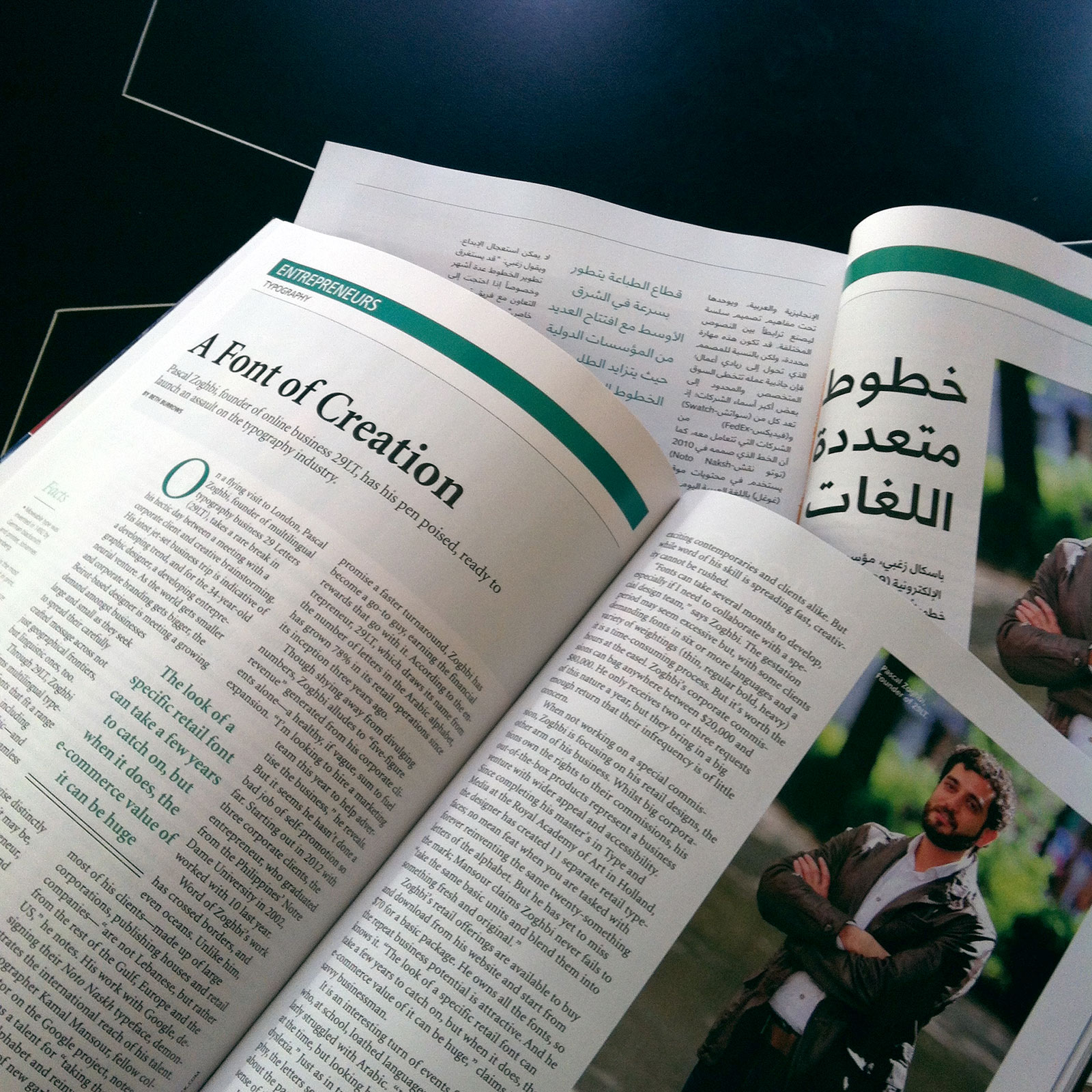
Pascal Zoghbi, founder of online business 29LT, has his pen poised, ready to launch an assault on the typography industry.
On a flying visit to London, Pascal Zoghbi, founder of multilingual typography business 29Letters (29LT), takes a rare break in his hectic day between a meeting with a corporate client and creative brainstorming. His latest jet-set business trip is indicative of a developing trend, and for the 34-year-old graphic designer, a developing entrepreneurial venture. As the world gets smaller and corporate branding gets bigger, the Beirut-based designer is meeting a growing demand amongst businesses large and small as they seek to spread their carefully crafted message across not just geographical frontiers, but linguistic ones, too.
Through 29LT, Zoghbi designs multilingual typefaces—fonts that fit a range of languages, including English and Arabic—and unites them under seamless design concepts, creating synergies between otherwise distinctly different scripts. A specific skill it may be, but for the designer-turned-entrepreneur, the appeal of his work extends far beyond a limited niche to some of today’s biggest corporate names. Swatch and FedEx count amongst his client portfolio, with Zoghbi’s Noto Naskh typeface, designed in 2010, used for Google’s Arabic content today.
Indeed, as companies replace classical calligraphers—whose work is as laborious as it is beautiful—with typographers who promise a faster turnaround, Zoghbi has become a go-to guy, earning the financial rewards that go with it. According to the entrepreneur, 29LT, which draws its name from the number of letters in the Arabic alphabet, has grown 78% in its retail operations since its inception three years ago.
Though shying away from divulging numbers, Zoghbi alludes to “five-figure revenue” generated from his corporate clients alone—a healthy, if vague, sum to fuel expansion. “I’m looking to hire a marketing team this year to help advertise the business,” he reveals. But it seems he hasn’t done a bad job of self-promotion so far. Starting out in 2012 with three corporate clients, the entrepreneur, who graduated from the Lebanon’s Notre Dame University in 2002, worked with 10 last year.
The look of a specific retail font can take a few years to catch on, but when it does, the e-commerce value of it can be huge.
Word of Zoghbi’s work has crossed borders, and even oceans. Unlike him, most of his clients—made up of large corporations, publishing houses and retail companies—“are not Lebanese, but rather from the rest of the Gulf, Europe and the US,” he notes. His work with Google, designing their Noto Naskh typeface, demonstrates the international reach of his talent. Typographer Kamal Mansour, fellow collaborator on the Google project, notes that Zoghbi has a talent for “taking the letters of the Arabic alphabet and reinventing them in a multitude of new garbs.” It seems he is exciting contemporaries and clients alike. But while word of his skill is spreading fast, creativity cannot be rushed.
“Fonts can take several months to develop, especially if I need to collaborate with a special design team,” says Zoghbi. The gestation period may seem excessive but, with some clients demanding fonts in six or more languages and a variety of weightings (thin, regular bold, heavy) it is a time-consuming process. But it’s worth the hours at the easel. Zoghbi’s corporate com- missions can bag anywhere between five and six-figure sums. He only receives two or three requests of this nature a year, but they bring in a big enough return that their infrequency is of little concern.
When not working on a special commis- sion, Zoghbi is focusing on his retail designs, the other arm of his business. Whilst big corporations own the rights to their commissions, his out-of-the-box products represent a business venture with wider appeal and accessibility. Since completing his master’s in Type and Media at the Royal Academy of Art in Holland, the designer has created 11 separate retail typefaces; no mean feat when you are tasked with forever reinventing the same twenty-something letters of the alphabet. But he has yet to miss the mark; Mansour claims Zoghbi never fails to “take the same basic units and blend them into something fresh and original.”
Zoghbi’s retail offerings are available to buy and download from his website and start from $70 for a basic package. He owns all the fonts, so the repeat business potential is attractive. And he knows it. “The look of a specific retail font can take a few years to catch on, but when it does, the e-commerce value of it can be huge,” claims the savvy businessman.
It is an interesting turn of events for someone who, at school, loathed languages and particularly struggled with Arabic. “It didn’t really exist at the time, but looking back I think I had mild dyslexia.” Just as in traditional Arabic calligraphy, the letters seemed to writhe and wriggle about the page; Zoghbi simply could not make sense of them. It was only by taking summer courses and extra lessons that his studies improved, so much so that he came to love language and its render- ing. “I was fascinated by calligraphy but never studied it in school, so I self-taught using calligraphy books from the library.” His studies made a lasting impression; in 2011 he co-authored Arabic Graffiti, a discussion of how ancient calligraphy is combining with modern graffiti to form a new design movement. He has advice for other curious young creatives, too: “Invest in your skills—enrol in calligraphy courses and study the ancient script as much you can.” With more international corporations setting up shops in MENA, the typography industry is developing apace; there is a growing demand for unique multilingual fonts. But Zoghbi warns aspiring designers not to plunge into creating without solid background knowledge”. There is no replacement for rigorous study.
With hard-earned knowledge and expertise under his belt, Zoghbi’s sights are set on the future. And he has some ambitious business resolutions for 2015: “I want to open up my online platform to other Arabic typographers looking to publish their work.” His vision is to create a “retail channel” where designers can come together to grow and businesses can buy multilingual fonts. The move will further his mission to introduce new design perspectives and possibilities to the market, but it also makes sound business sense. Zoghbi will assist emerging designers with their work and, in return, take up to 50% of profits as commission.
As the entrepreneur speeds off to his next meeting, he appears to be spearheading something quite special. Through 29LT he has turned passion to profit, arguably the most fulfilling kind of business venture there is. And with an increasing number of corporations choosing MENA for their next outpost, it seems Zoghbi’s client list will only grow. He has taken the letters of language and styled them in such a way that it can only spell one thing: success.